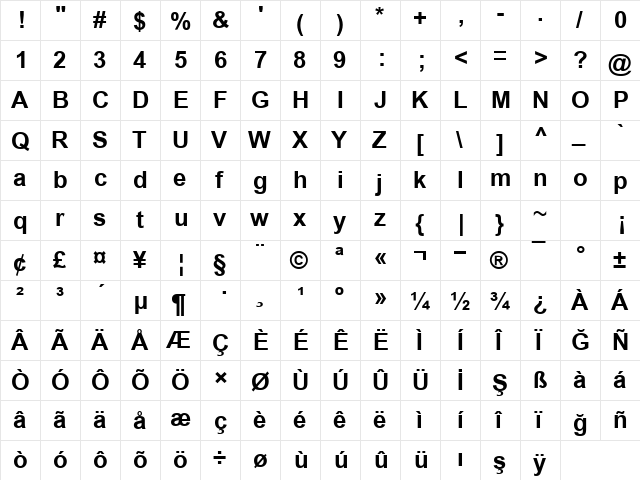
Arial Digiscream Bold
Design Context for Arial Digiscream Typeface
Arial Digiscream takes a measured approach to typography — its balanced proportions and neutral character make it a reliable workhorse for both digital and print work. The heavy weight commands attention and anchors typographic hierarchies.